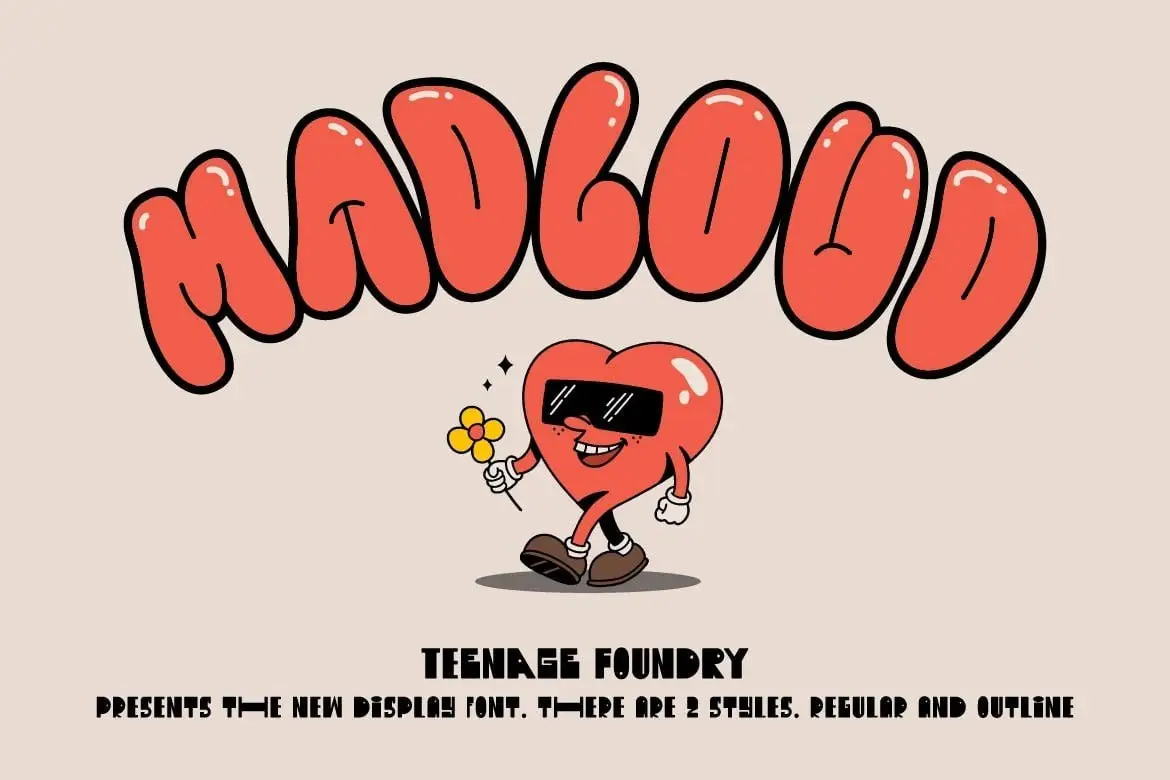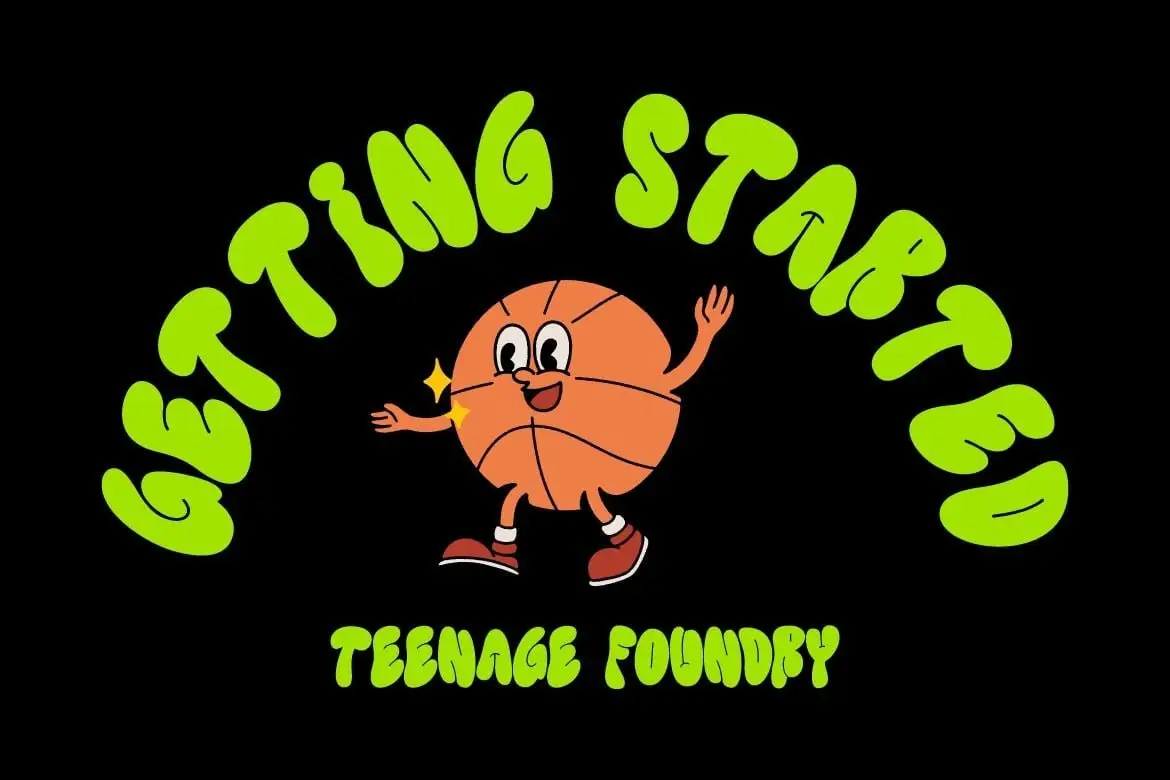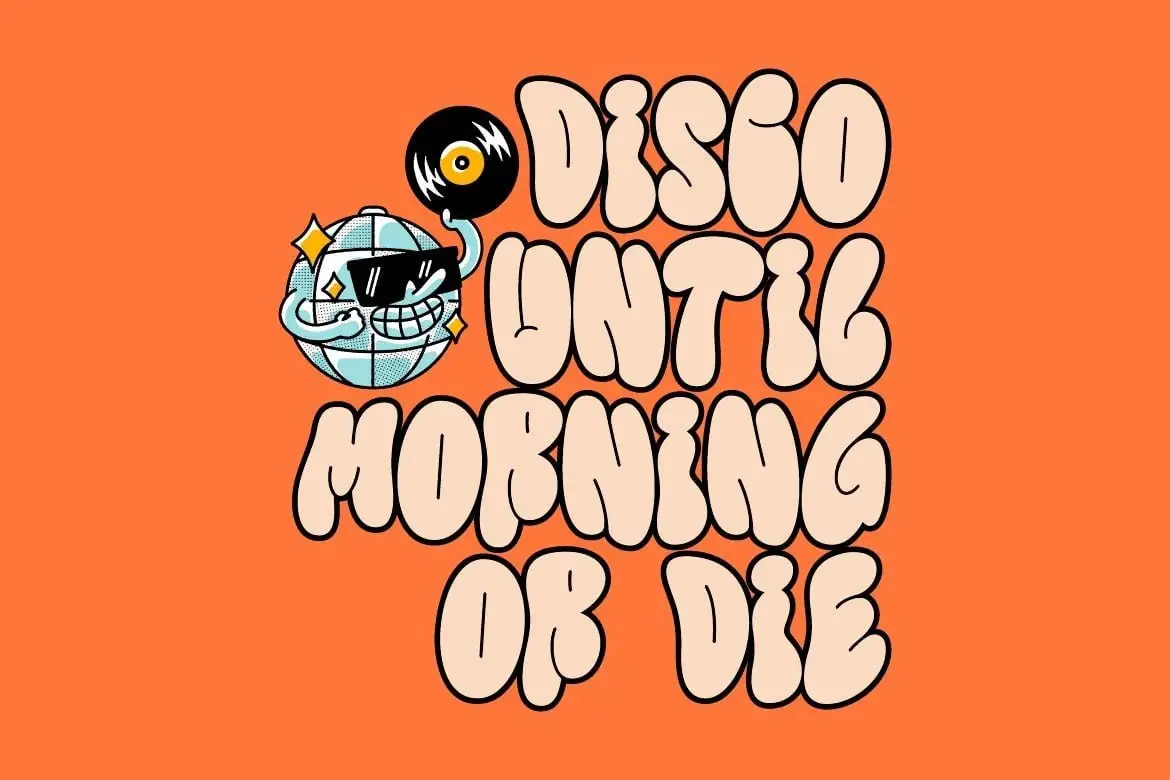
The Madcloud Font by Teenage Foundry is a unique typeface that brings a playful and modern touch to your design projects. With its distinct style, this font is perfect for branding, logos, web design, and print materials.
- Styles: Available in multiple weights to suit various design needs.
- Ideal for creating eye-catching logos and branding materials.
- Use in web design for a contemporary look that stands out.
- Great for print projects, including posters and flyers.
Madcloud Font By Teenage Foundry